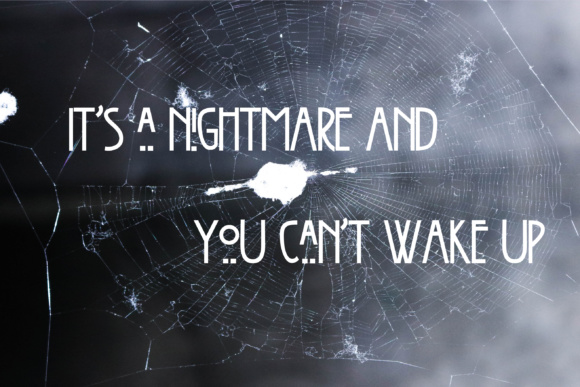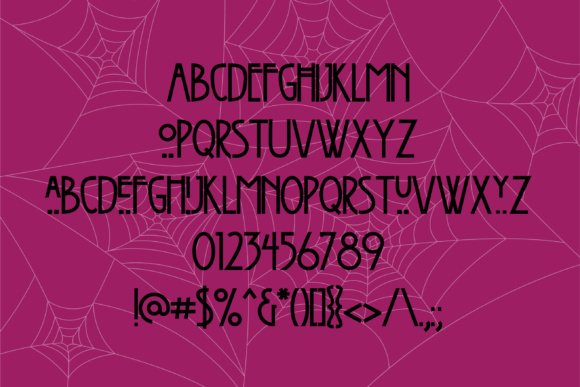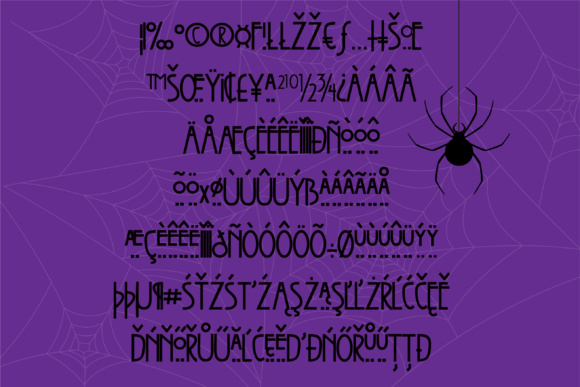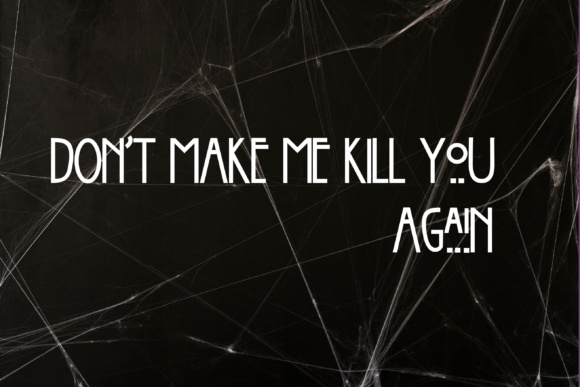
Arachno Horror Font: The Creepy, Crawly Favorite for Designers and Crafters
In the world of typography, fonts can evoke emotions and set the tone for any design project. For those who delight in the darker side of design, the Arachno Horror Font has become a go-to choice for creating spine-tingling, eerie, and unsettling artwork. Inspired by the opulence of Art Deco, this font has quickly gained popularity among designers and crafters who appreciate its unique blend of sophistication and creepiness.
The Distinctive Features of Arachno Horror Font
So, what makes Arachno Horror Font stand out from the crowd? Several letters in this font feature a distinctive double dot underneath them, which gives it a sense of eeriness and foreboding. Additionally, the font boasts a higher baseline, adding to its Art Deco inspiration and giving it a sense of grandeur. These unique features make Arachno Horror Font perfect for creating designs that require a touch of macabre elegance.
The Creepy Spider Bullet Point: A Bonus Feature
One of the most delightful features of Arachno Horror Font is its creepy spider bullet point. This bonus feature allows designers to add an extra layer of creepiness to their work, making it perfect for projects that require a touch of whimsy and playfulness. Imagine using this font to create a spooky invitation or a creepy label for a craft project – the spider bullet point is sure to send shivers down the spine of anyone who sees it.
Why Designers and Crafters Love Arachno Horror Font
Designers and crafters have fallen in love with Arachno Horror Font for several reasons. Firstly, its unique blend of Art Deco sophistication and creepiness makes it perfect for a wide range of projects, from spooky invitations to creepy crafts. Secondly, the font’s distinctive features, such as the double dot underneath certain letters and the higher baseline, give it a sense of character and personality that is hard to find in more traditional fonts.
Using Arachno Horror Font in Design Projects
So, how can you use Arachno Horror Font in your design projects? The possibilities are endless! Here are a few ideas to get you started:
- Spine-tingling invitations: Use Arachno Horror Font to create invitations for Halloween parties, spooky movie nights, or other eerie events.
- Creepy crafts: Add a touch of creepiness to your craft projects, such as DIY decorations, gift tags, or labels.
- Eerie branding: Use Arachno Horror Font to create a brand identity that is sure to stand out from the crowd.
Tips and Tricks for Working with Arachno Horror Font
Here are a few tips and tricks to keep in mind when working with Arachno Horror Font:
- Experiment with different colors: Arachno Horror Font looks great in bold, bright colors, but it can also be effective in more muted, pastel shades.
- Play with texture: Add texture to your design by layering Arachno Horror Font over a background image or texture.
- Mix and match: Combine Arachno Horror Font with other fonts to create a unique and eye-catching design.
In conclusion, Arachno Horror Font is a unique and captivating font that is sure to delight designers and crafters who appreciate the darker side of design. With its Art Deco inspiration, distinctive features, and creepy spider bullet point, this font is perfect for creating spine-tingling, eerie, and unsettling artwork. Whether you’re designing invitations, crafts, or branding materials, Arachno Horror Font is sure to add a touch of creepiness and whimsy to your work.